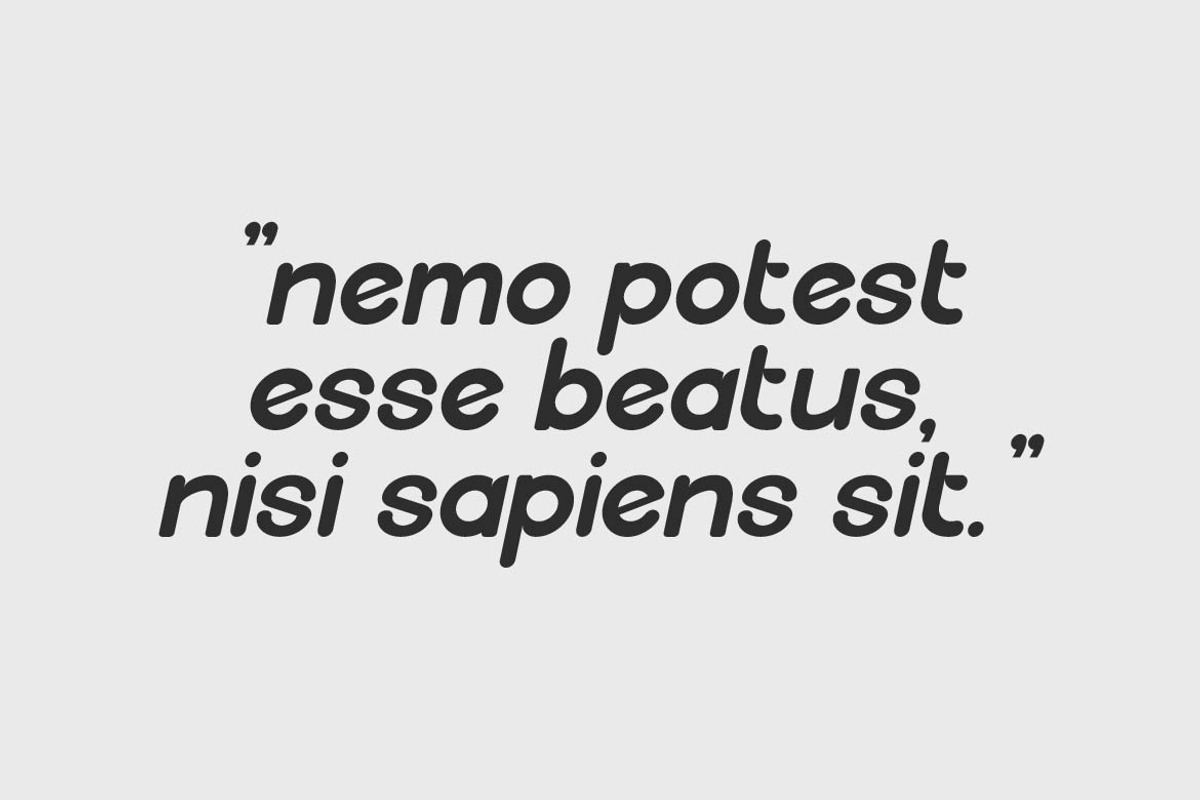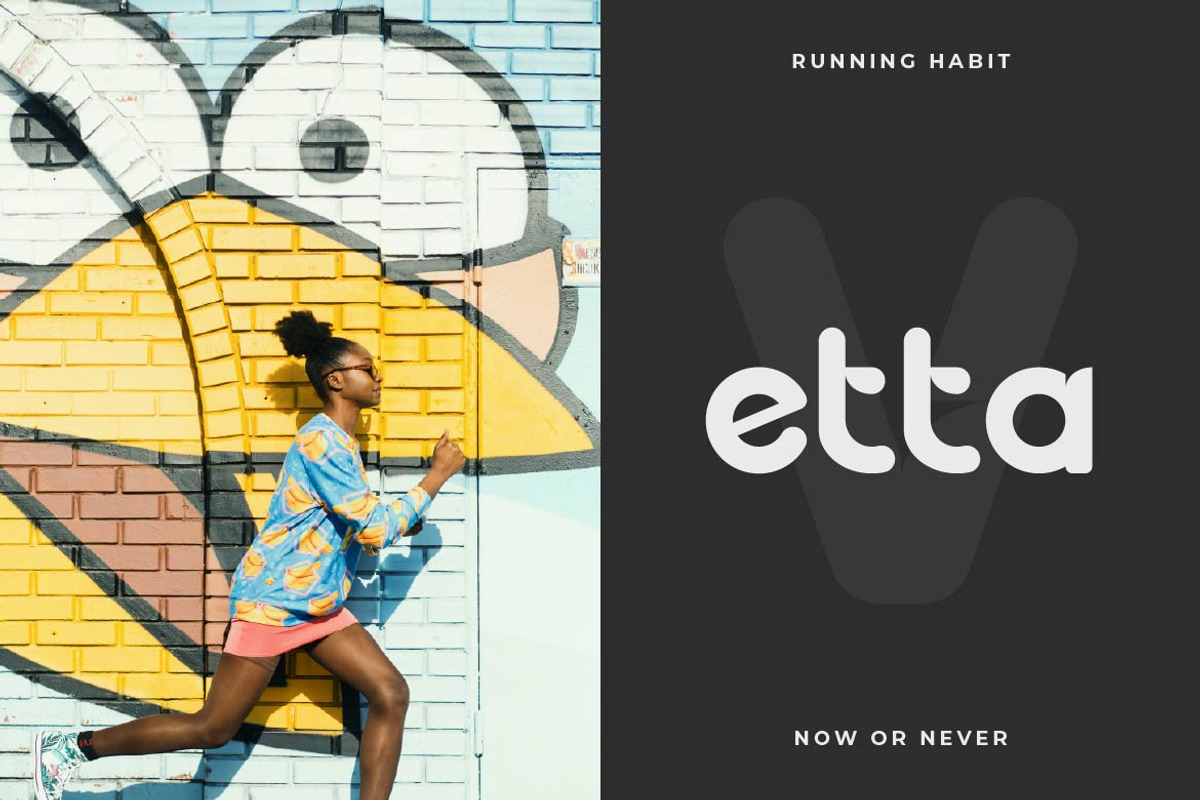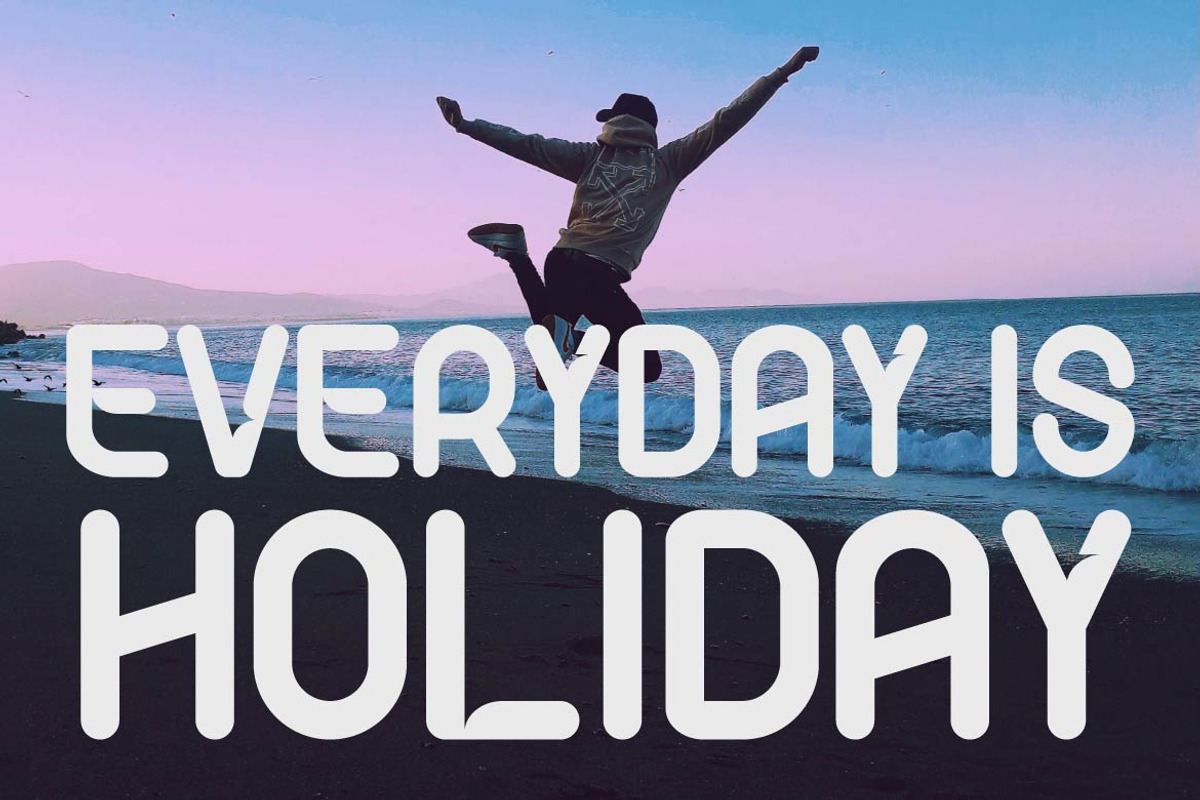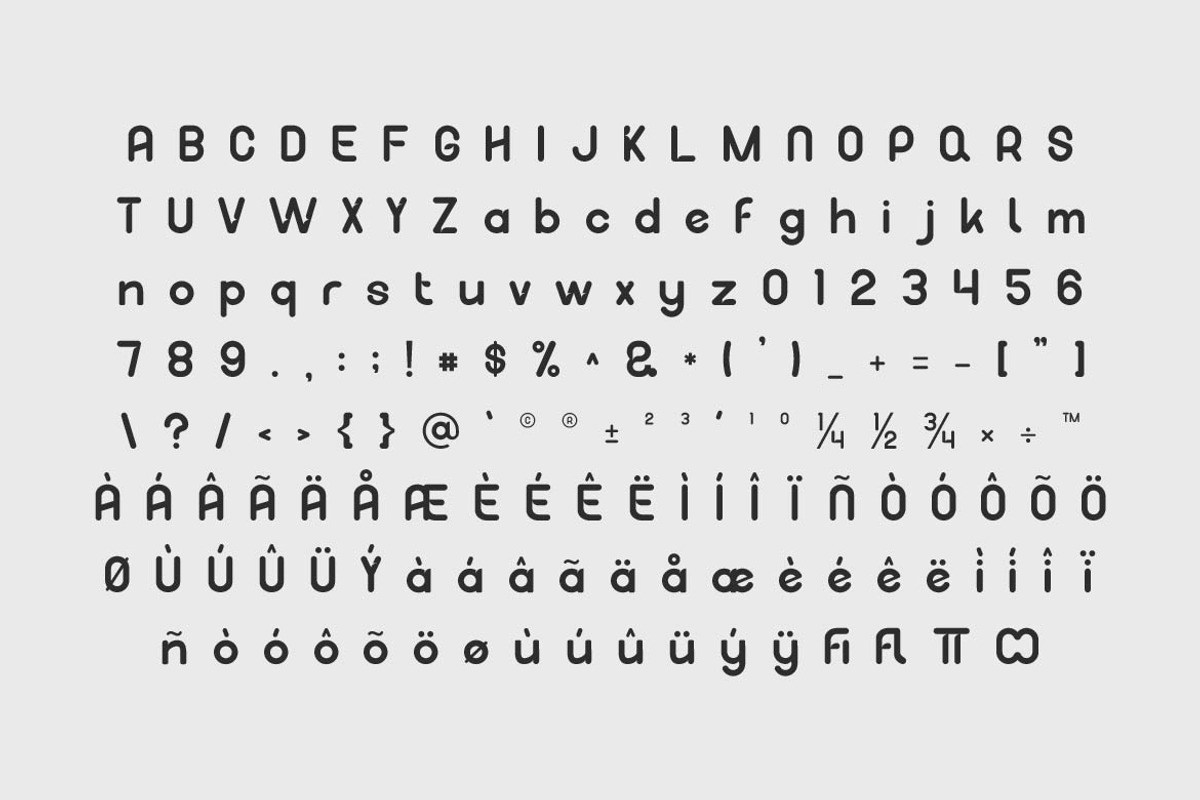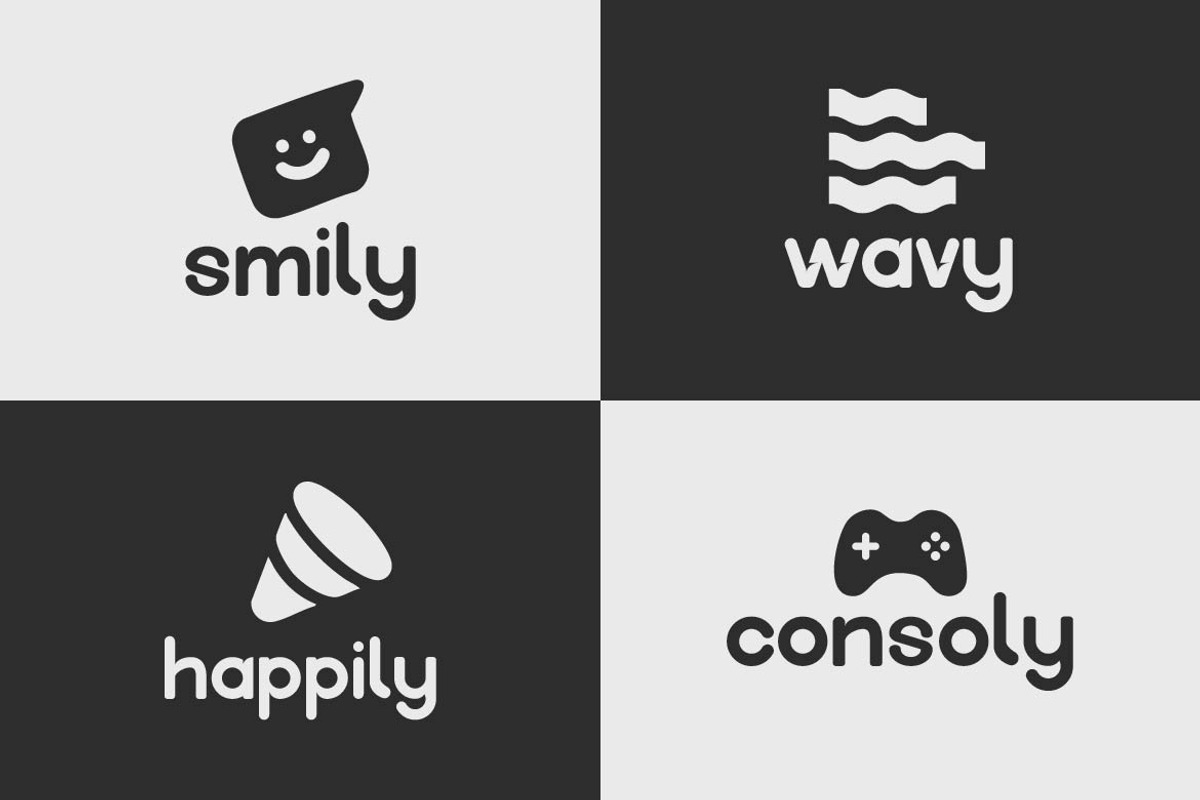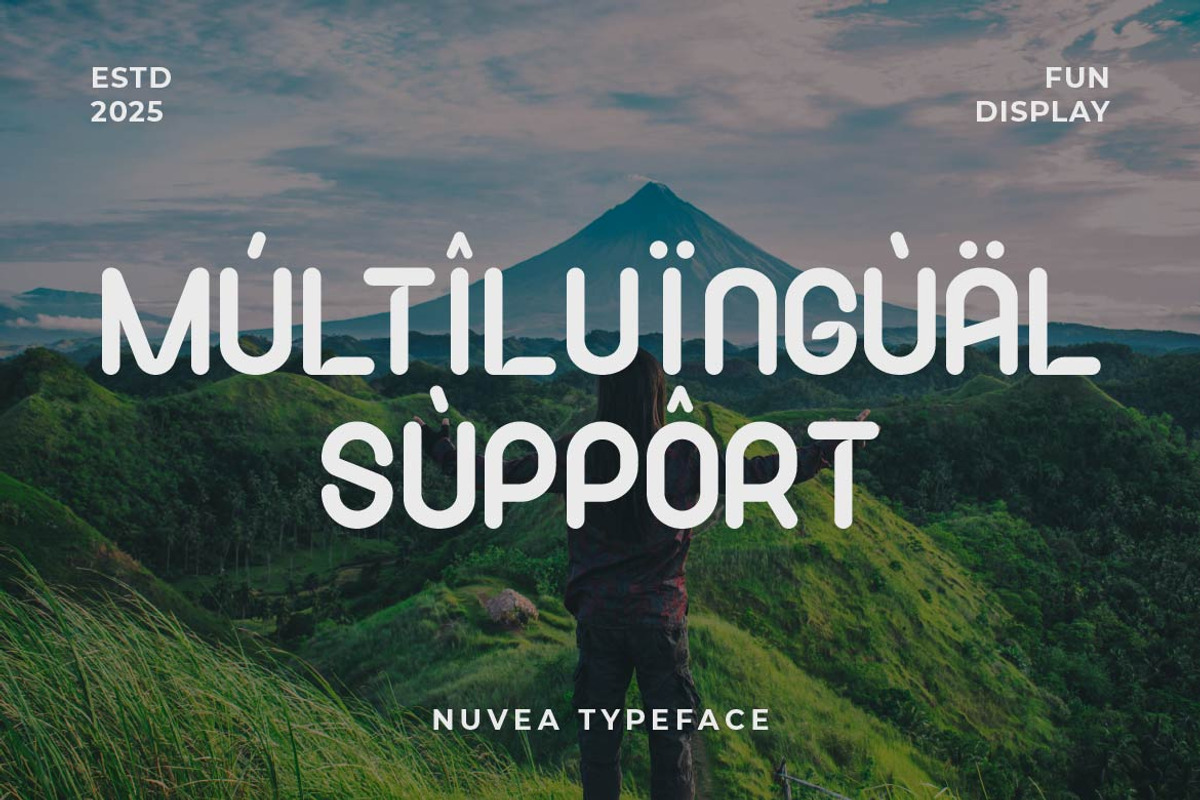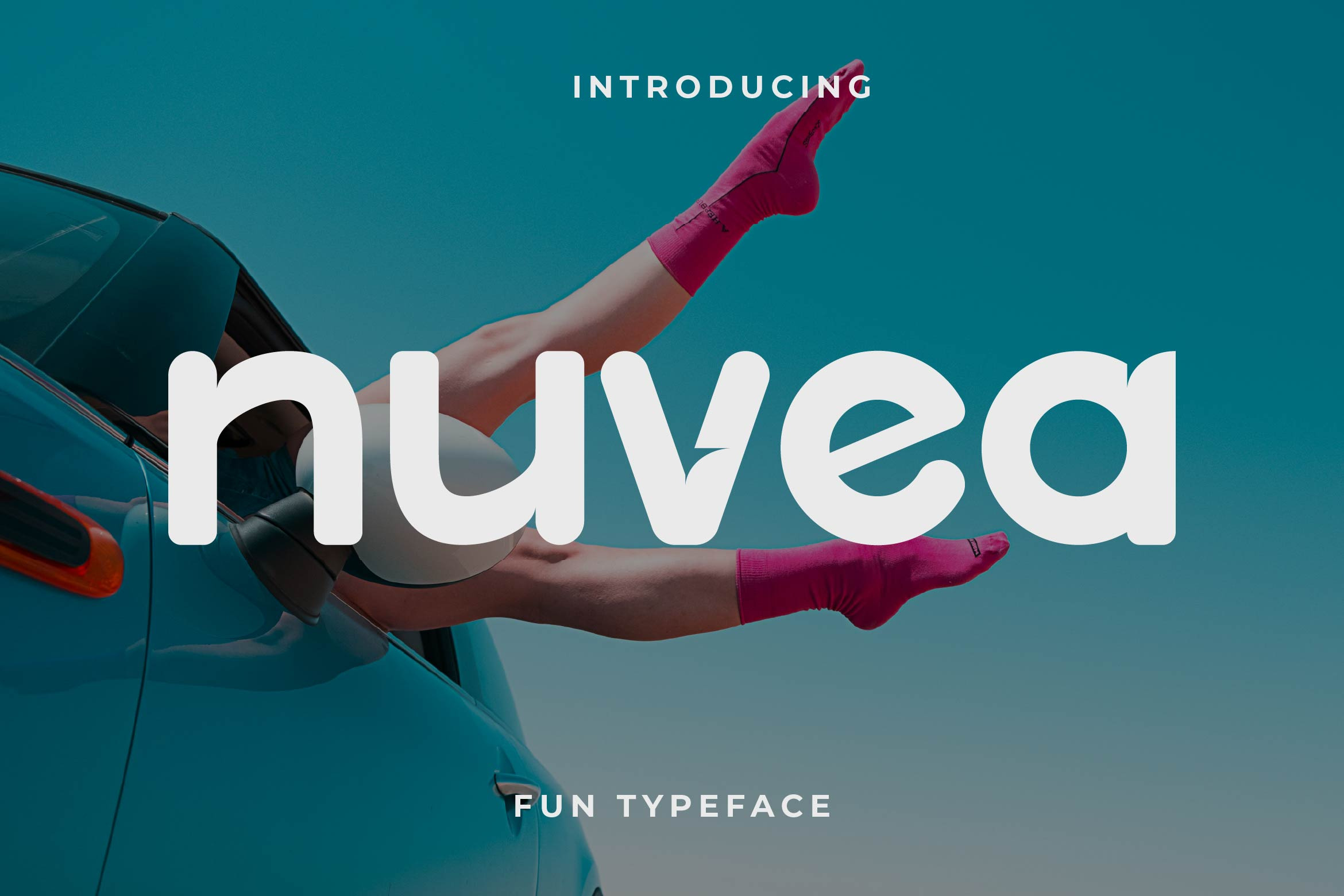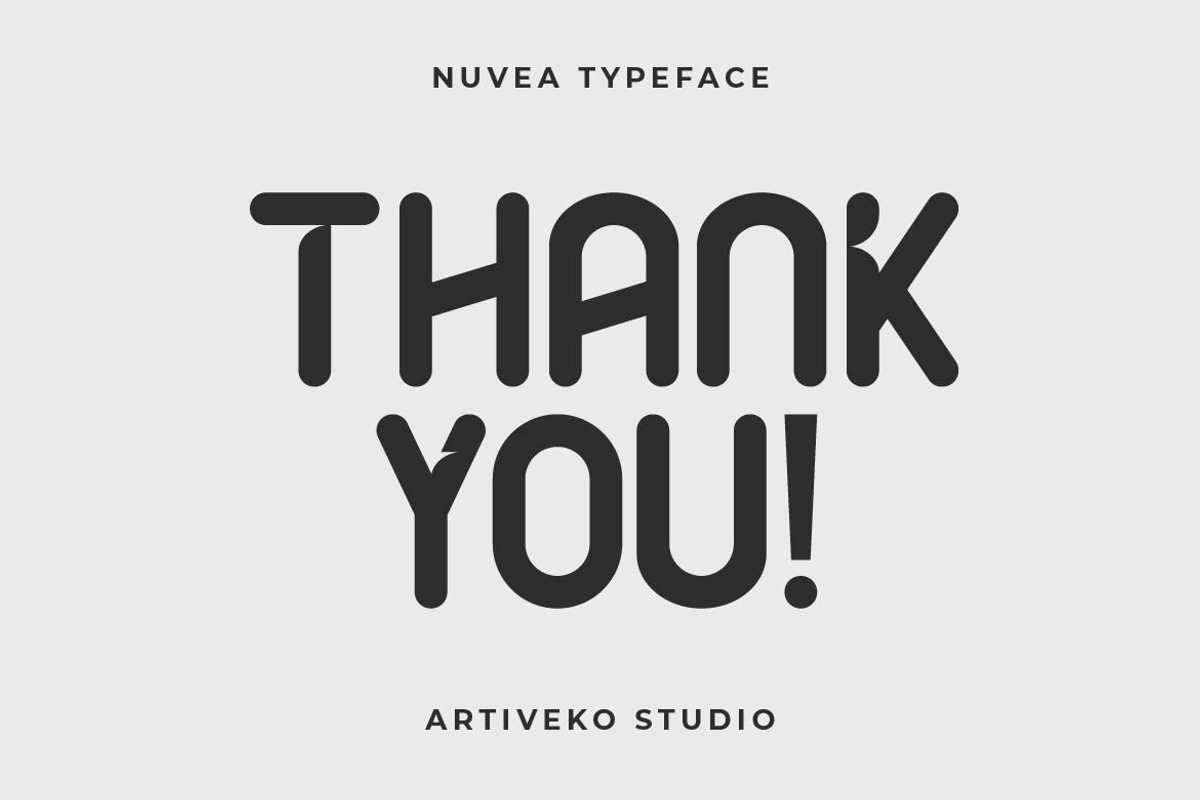
Nuvea Display Font
Nuvea is a fun and playful display font designed to brighten up any project. With its rounded edges, bouncy rhythm, and quirky charm, Nuvea brings a sense of joy and creativity to your typography. Perfect for kids' designs, colorful branding, party invitations, packaging, social media, and anything that needs a splash of happiness.